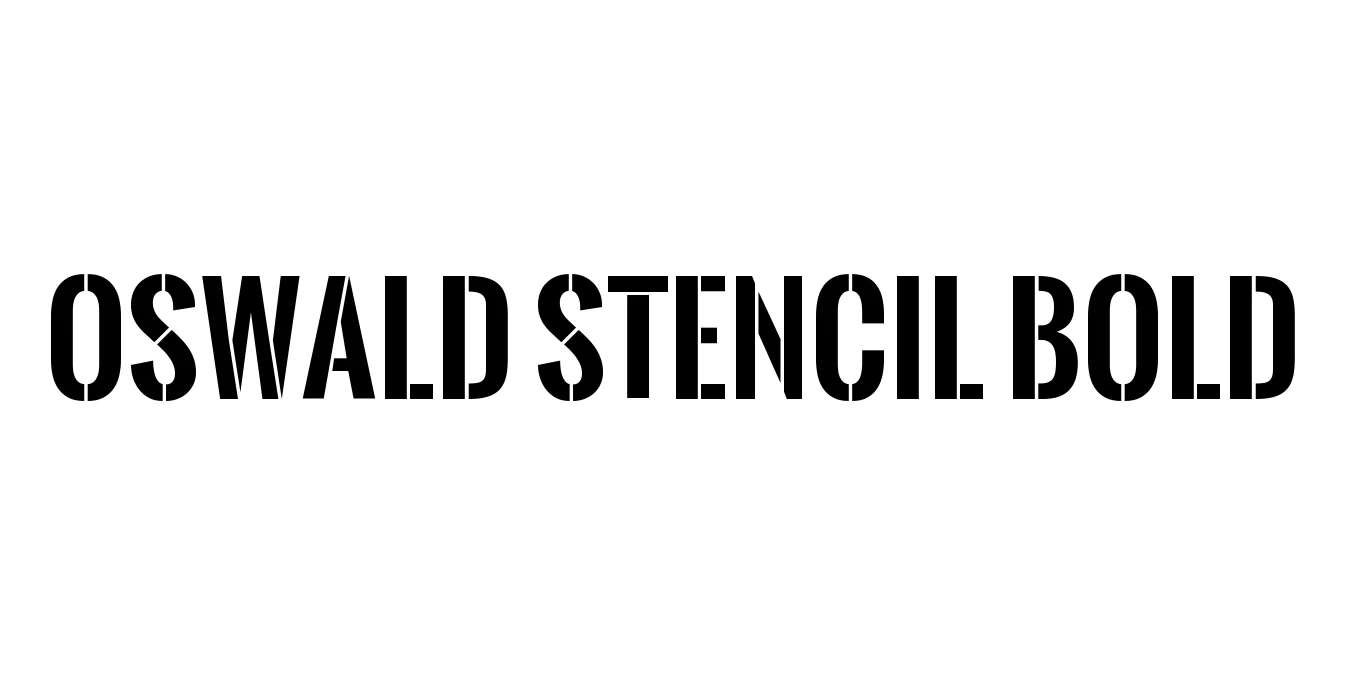
Oswald Stencil Bold
Designed by Vernon Adams
| Font Name | Oswald Stencil |
| Category | Stencil / Sans Serif |
| Designer | Vernon Adams |
| Similar Fonts | Alternate Gothic, Impact, Stardos Stencil, Big Noodle Titling |
Oswald Stencil Bold is a creative adaptation of the classic Oswald typeface, which was originally designed to rework the style historically represented by the 'Alternate Gothic' sans serif typefaces. This specific stencil variation retains the condensed, vertical proportions of the original design while introducing precise gaps that evoke a rugged, industrial, and utilitarian aesthetic. The characters have been meticulously refined to ensure they maintain their integrity and legibility even with the stencil breaks.
The font is particularly effective for display purposes where a sense of strength and authority is required. By combining the modern digital optimization of the Oswald family with the timeless look of military and warehouse stenciling, this bold weight provides a striking visual impact. It is a versatile choice for designers who need a font that bridges the gap between classic 20th-century gothic styles and contemporary graphic design needs.
Oswald Stencil Bold Best Uses
Ideal for creating strong, impactful logos with a manufacturing or industrial vibe.
Works perfectly for large-scale typography and high-contrast event posters.
Great for eye-catching, condensed headlines that demand user attention.
Excellent for physical stencil applications, architectural lettering, and warehouse markings.